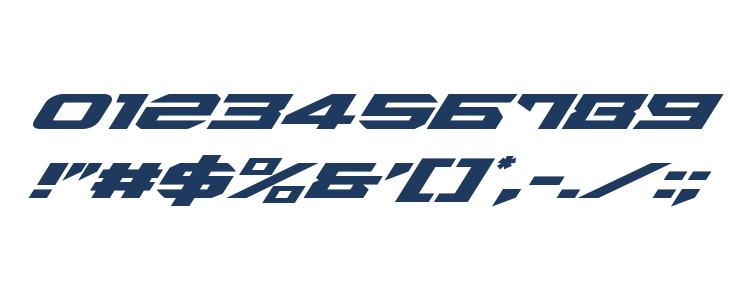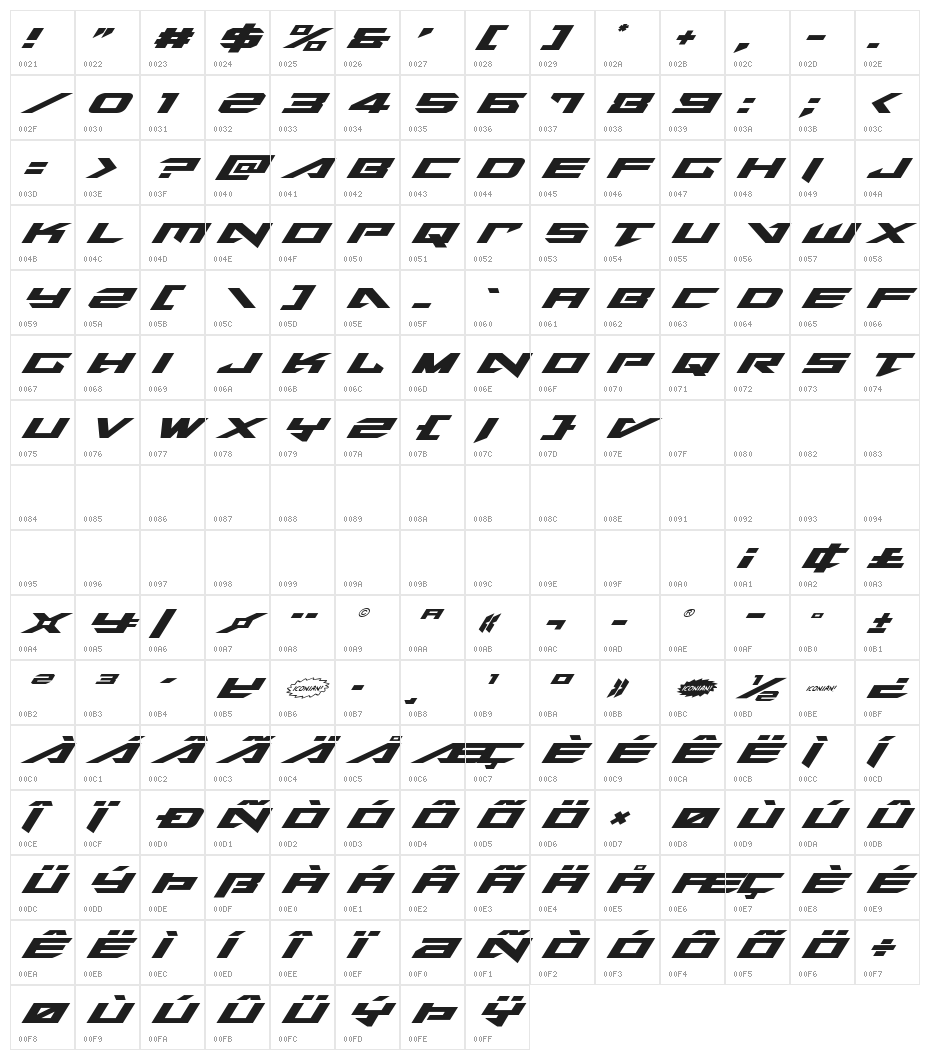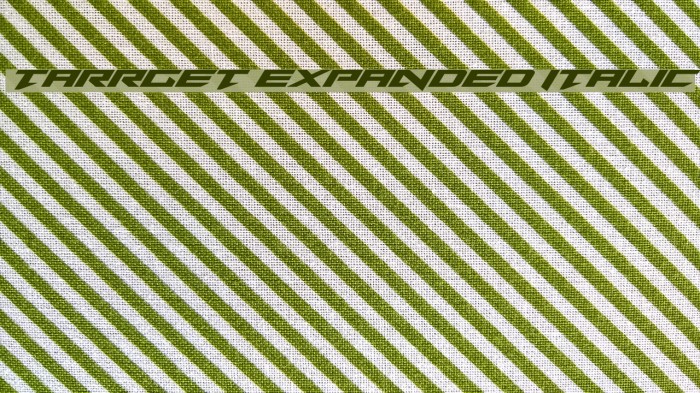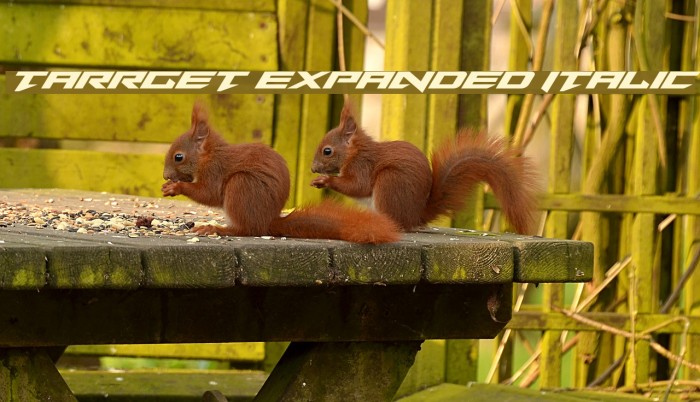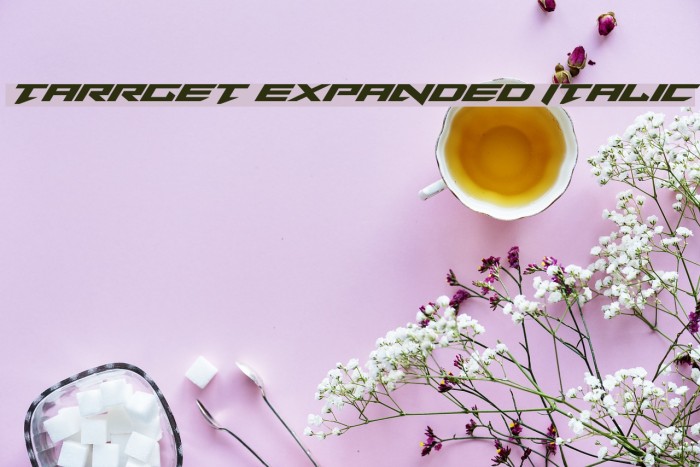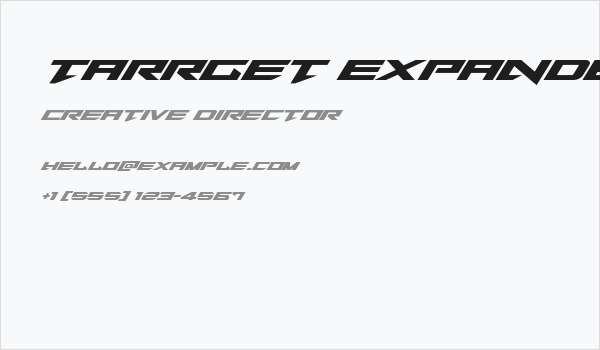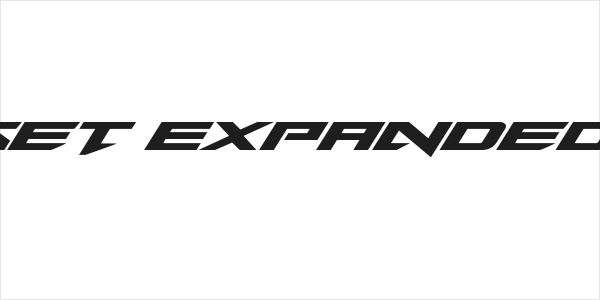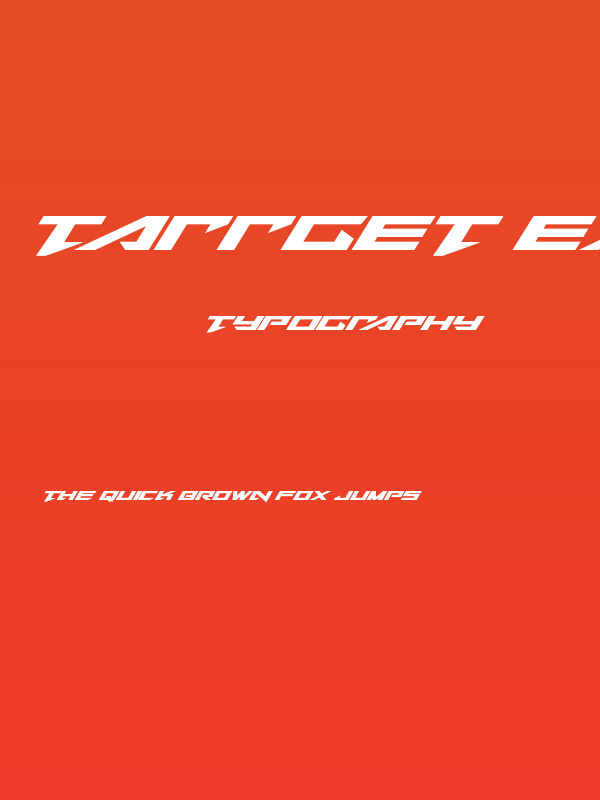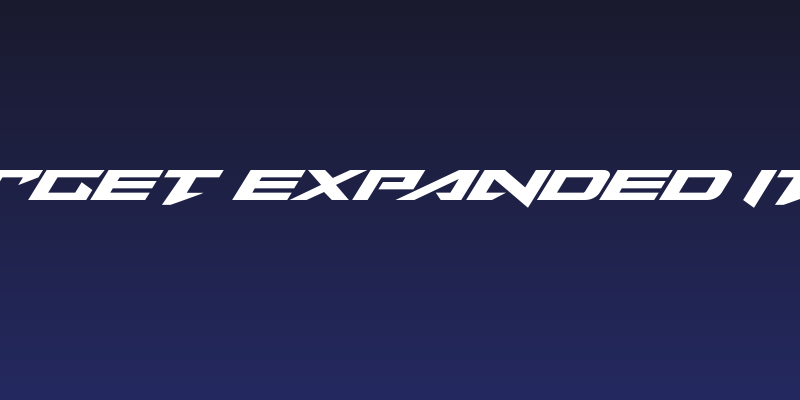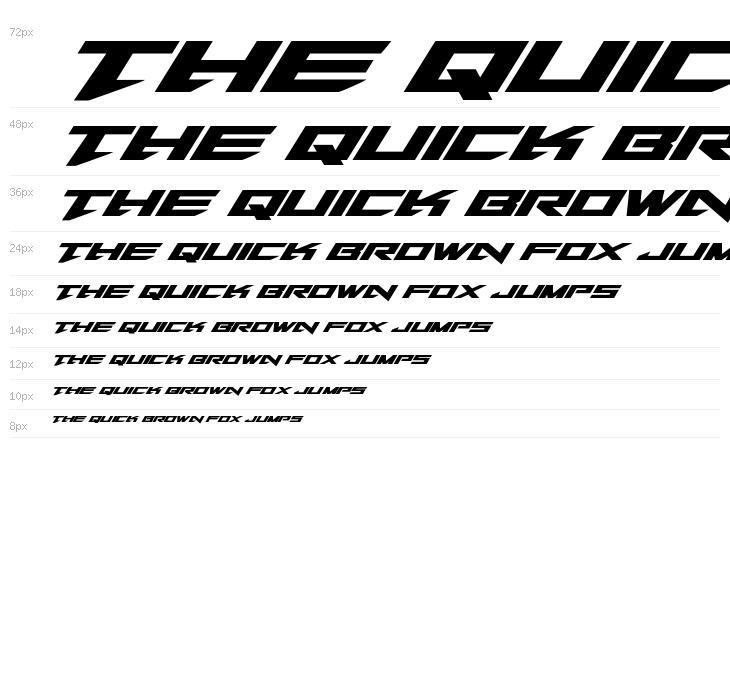
Tarrget Expanded Italic Font
Tarrget Expanded Italic Description
This font features a bold, italicized style with an expanded width, giving it a dynamic and futuristic appearance. The characters are sharply angled, with a consistent slant that adds a sense of motion and speed. The bold strokes and geometric shapes create a strong visual impact, making it suitable for attention-grabbing designs. The numbers and special characters maintain the same stylistic elements, ensuring uniformity across all glyphs. The overall design is sleek and modern, ideal for projects that require a contemporary and edgy look.
Proposed ProjectsIdeal for branding, sports team logos, automotive designs, video game titles, and sci-fi themed projects.